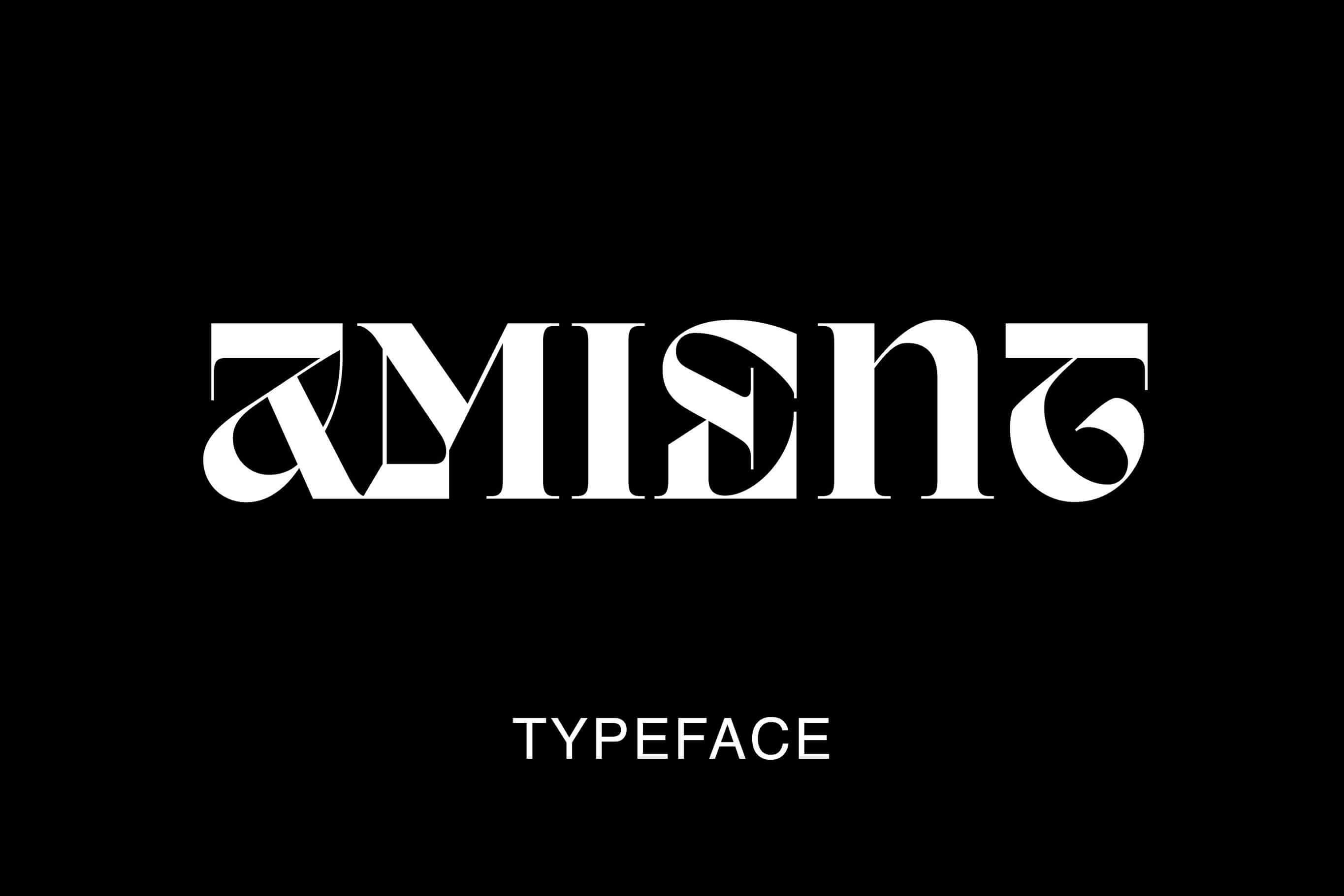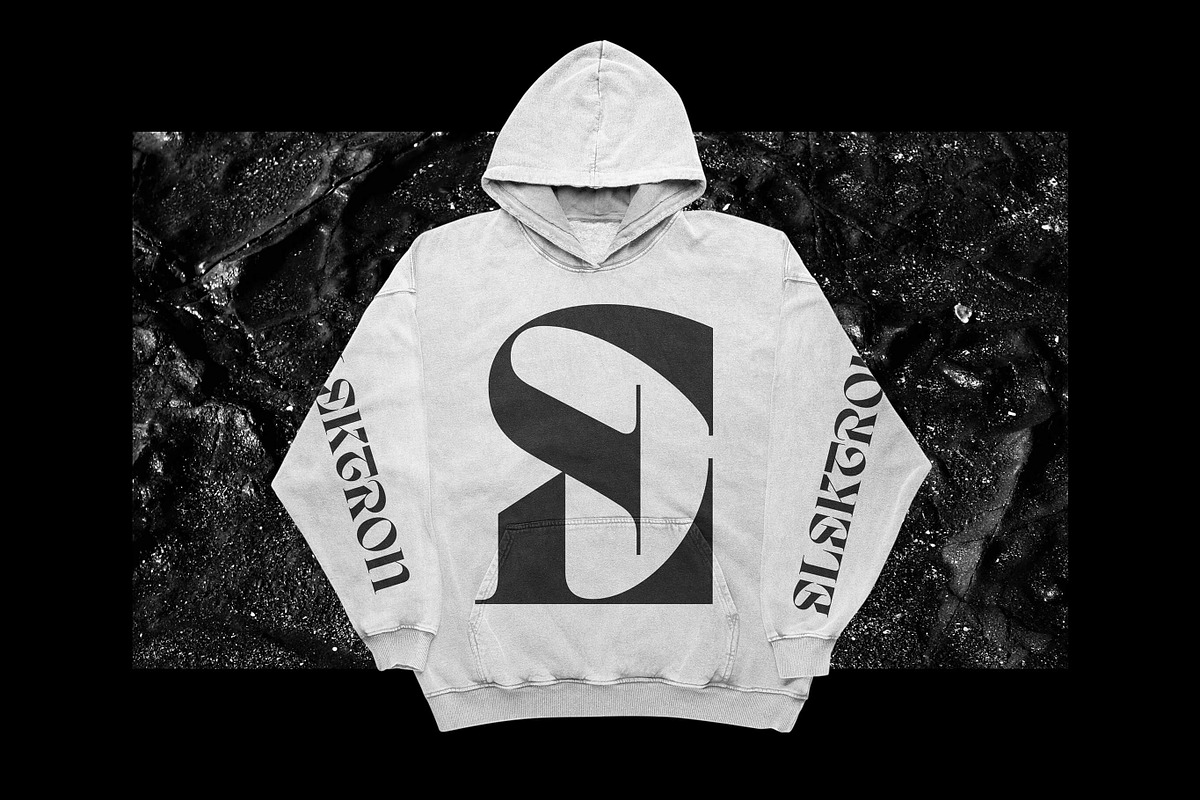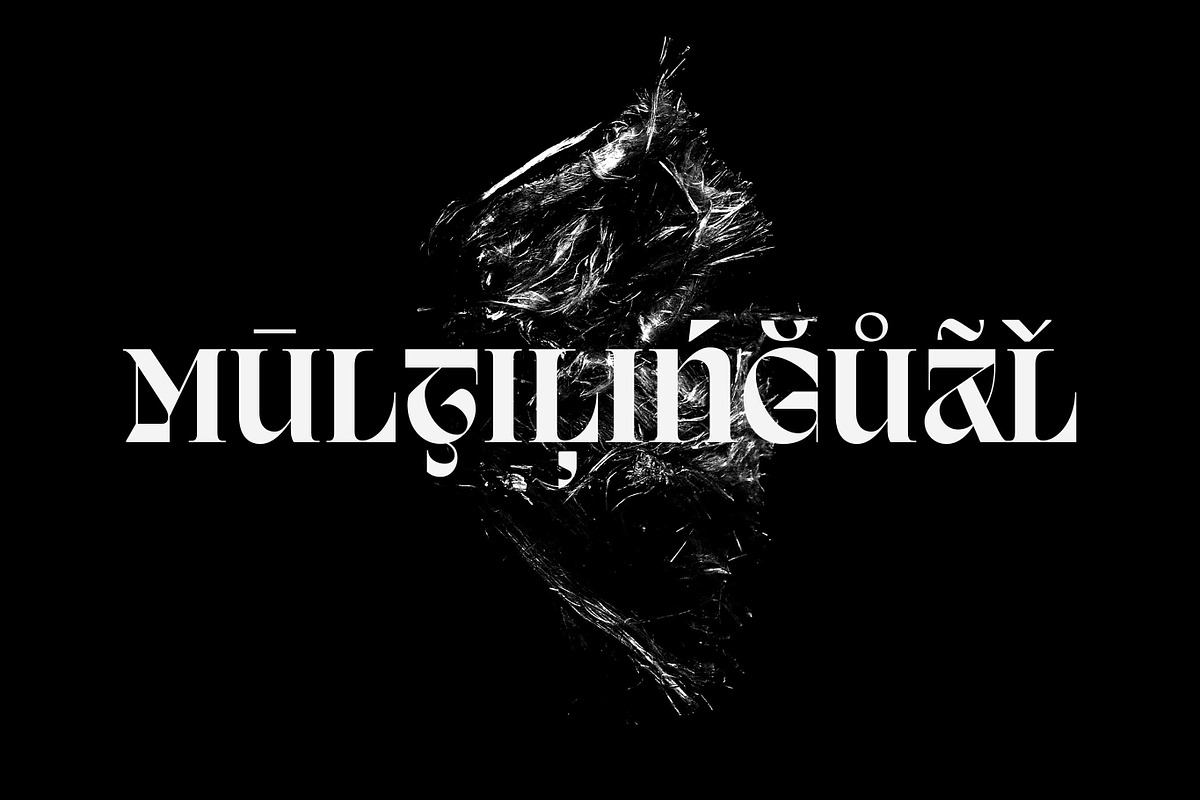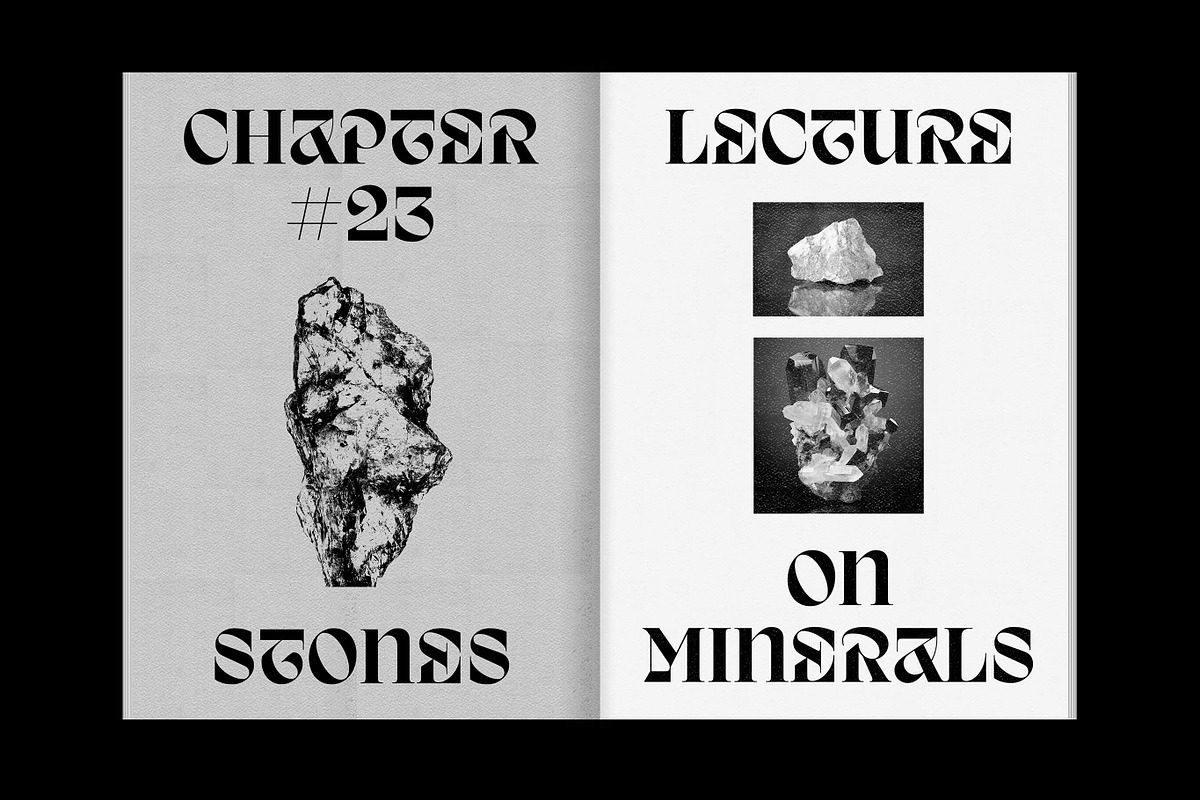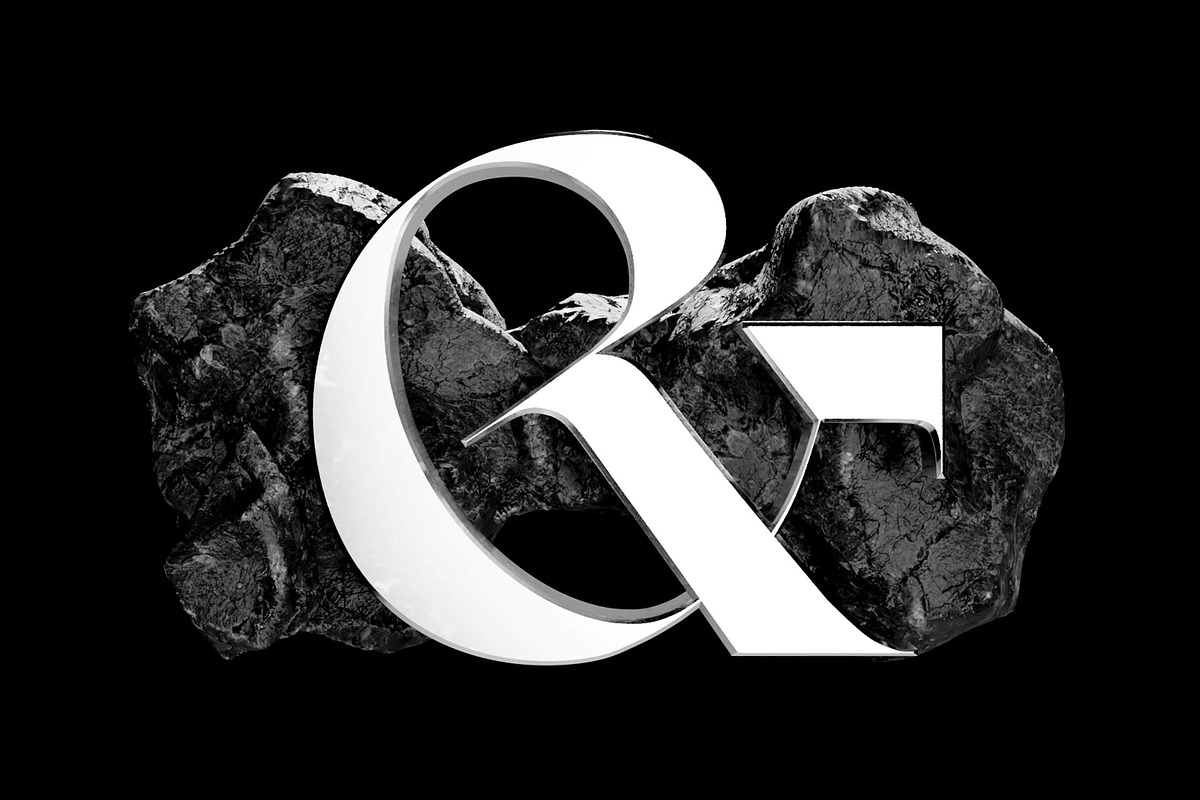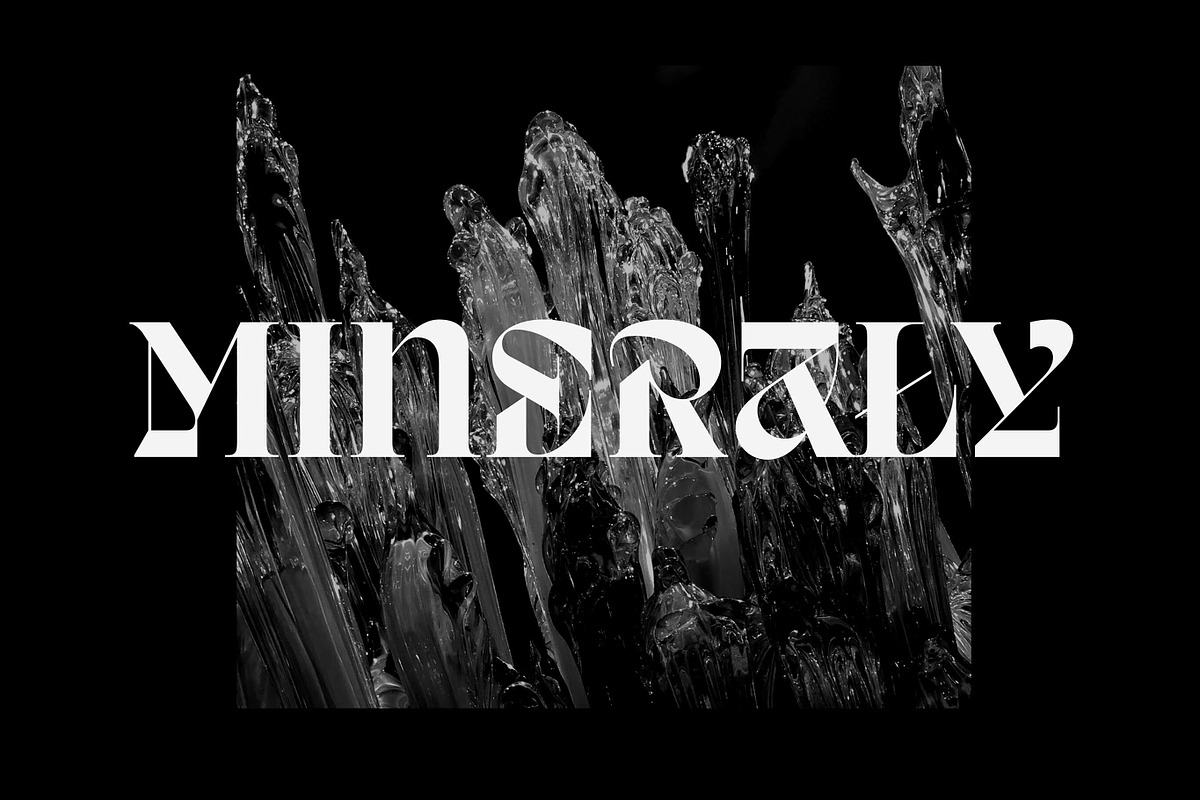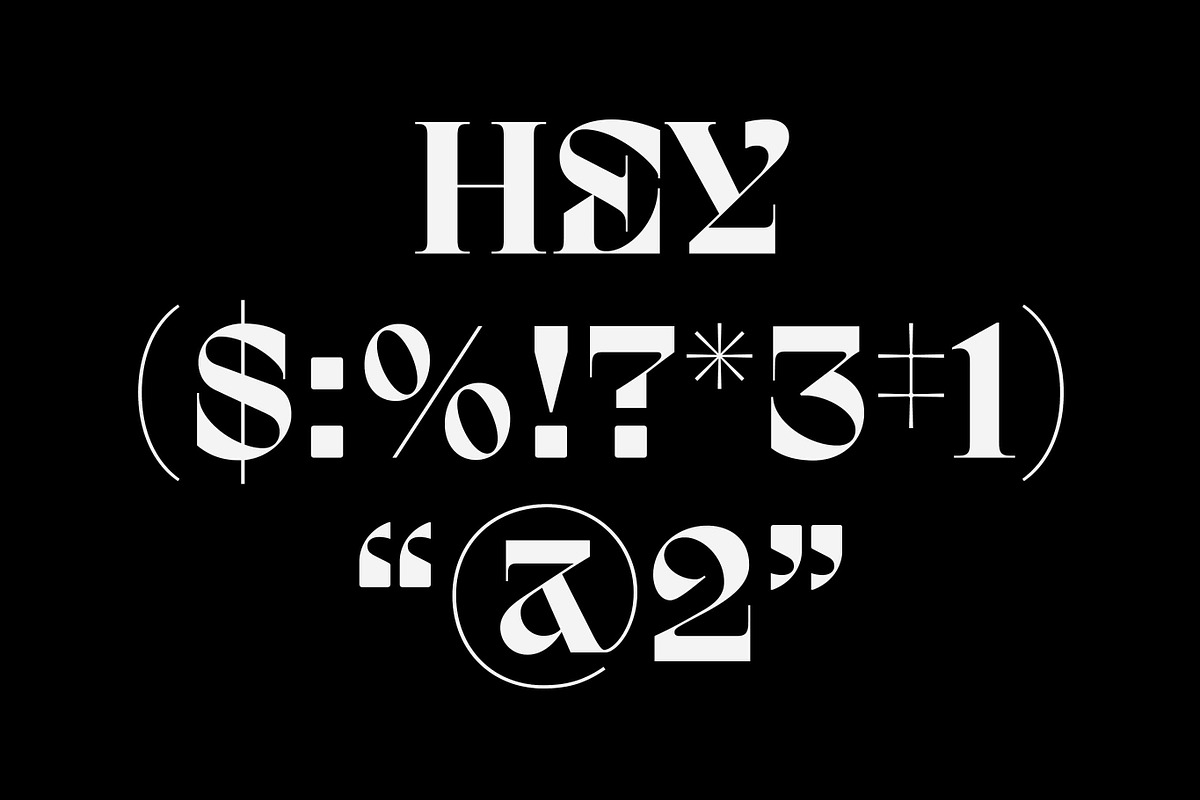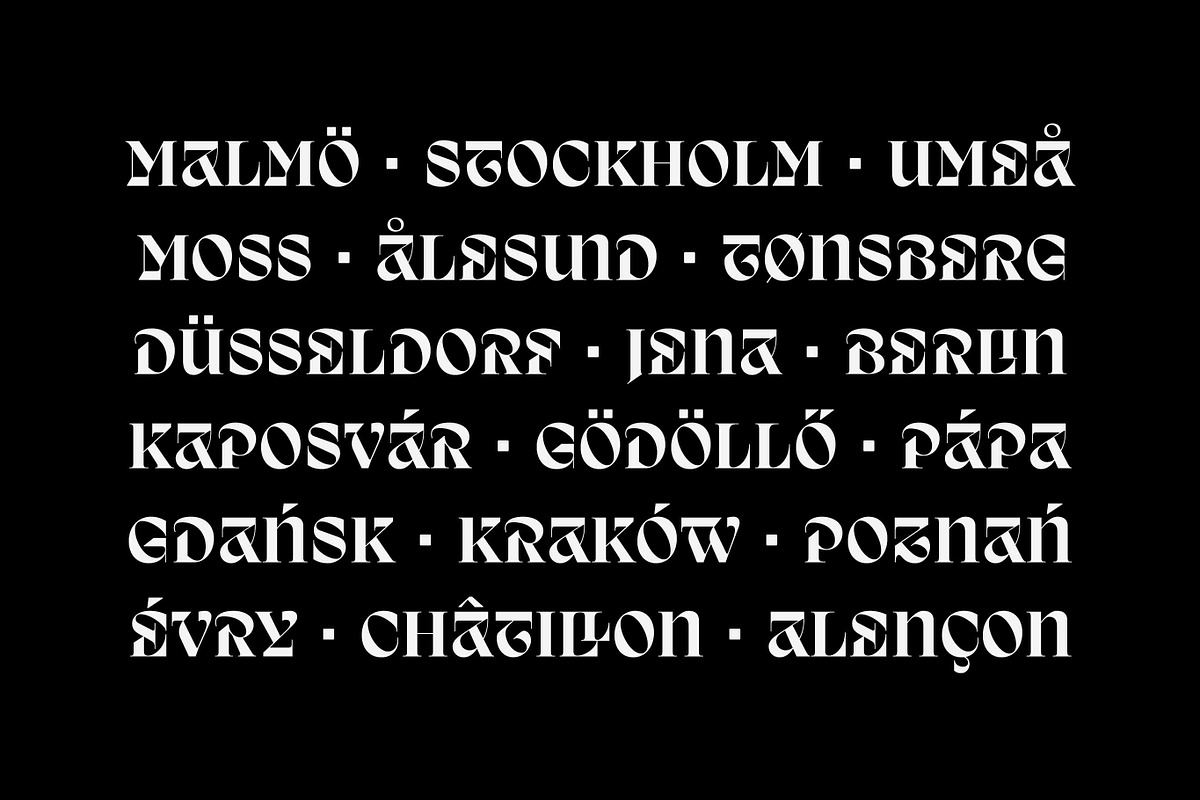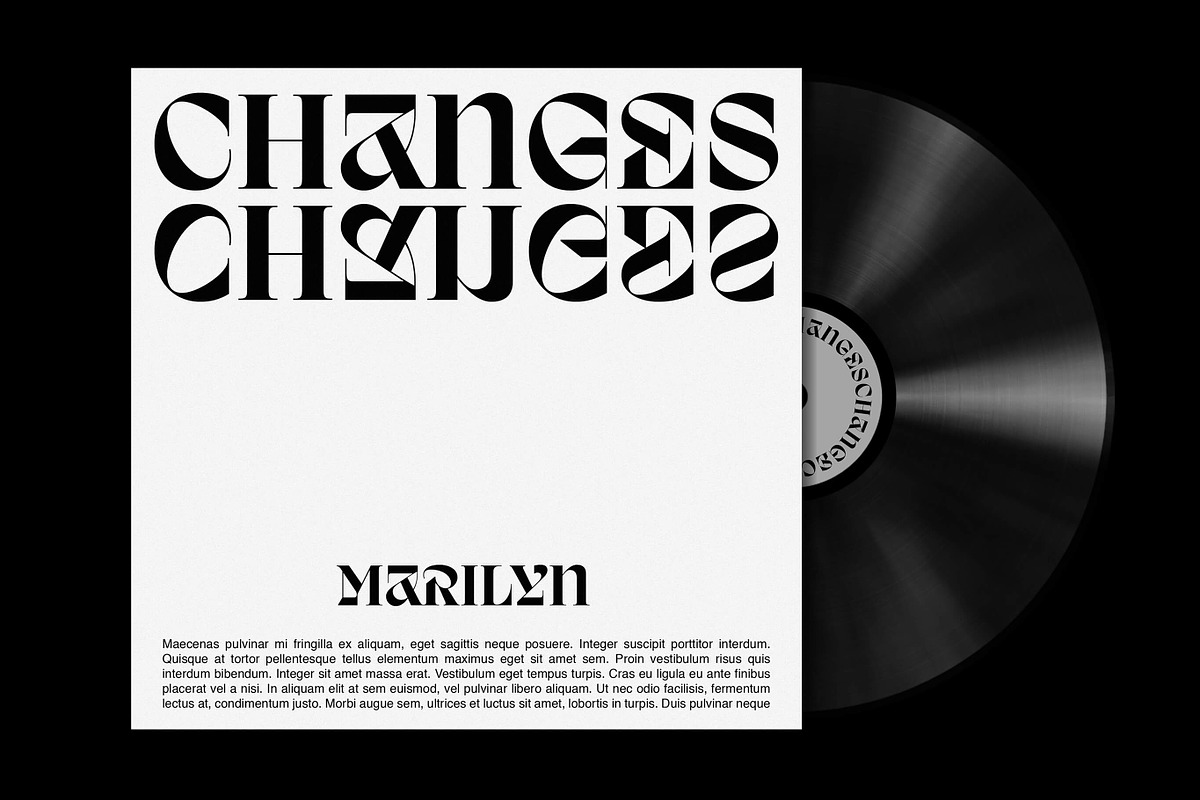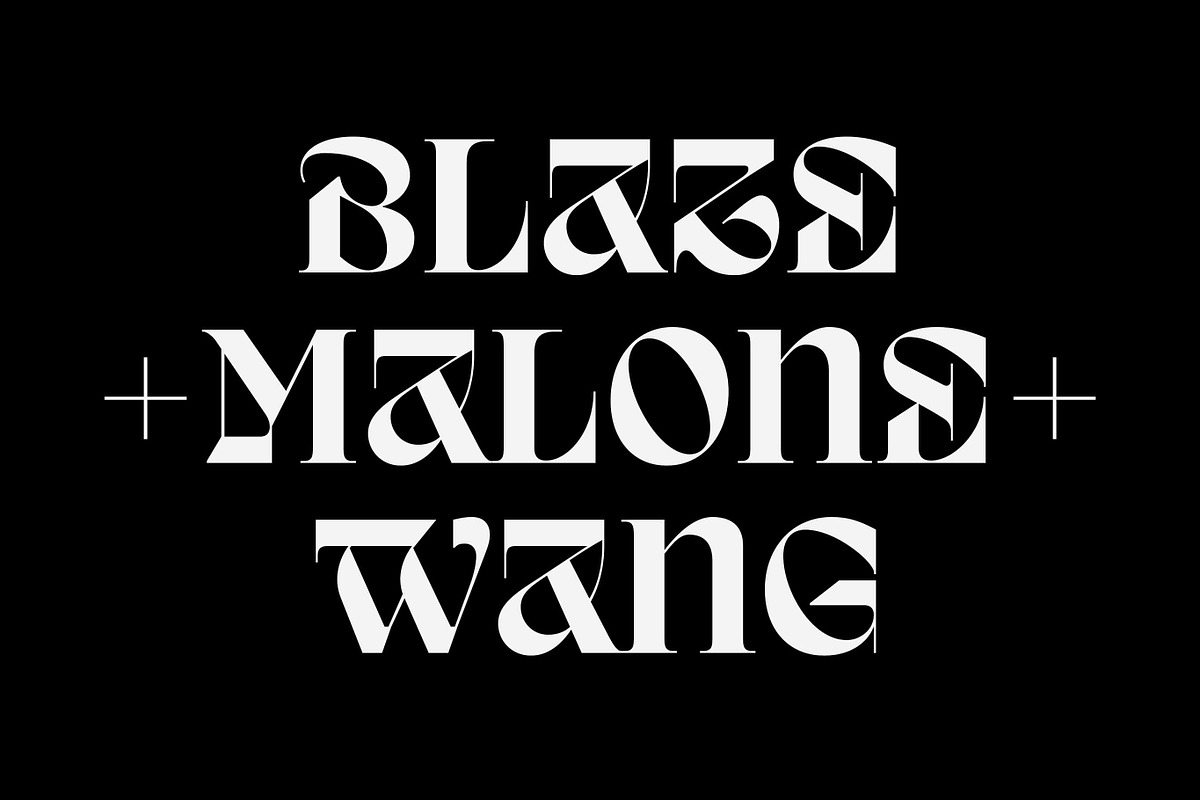
Amient – Modern Display Font
Amient is a modern, experimental, display typeface inspired by contemporary typography. It has a very eccentric and expressive character. The letterforms are eclectic but consistent at the same time. Amient is a bold choice for bold projects. It will work well on posters, covers, titles and logotypes.
1 Style, 1 Weight
Only Capitals
Extended Latin Support
250+ Glyphs Set